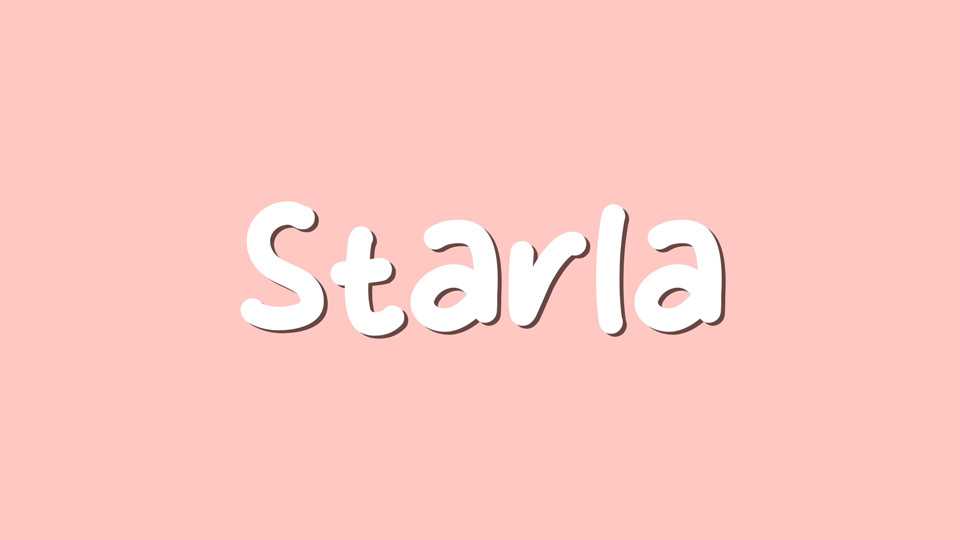
Download Starla font, a lovely and cute hand-drawn typeface that will fill any design with a sense of playful charm and childlike wonder. With Starla font, your designs will radiate with a lighthearted and carefree vibe.